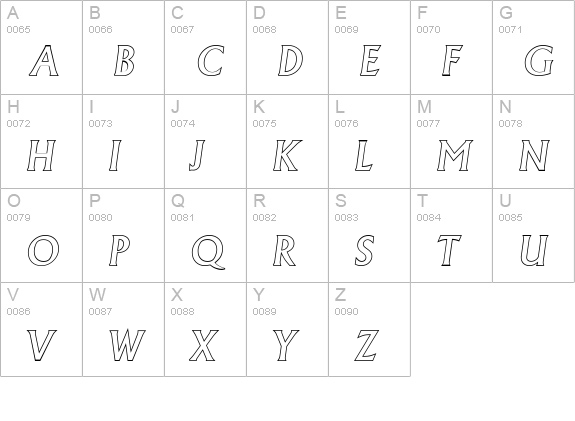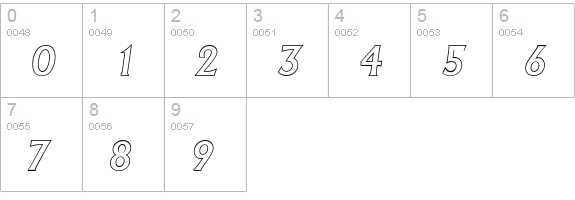
AdelonOutline-Medium-Italic is a balanced, medium-weight, italic variant in the AdelonOutline typeface family \xE2\x80\x94 well suited to sub-headlines, navigation, and balanced editorial work.
AdelonOutline-Medium-Italic font is a sleek and sophisticated typeface that strikes the perfect balance between elegance and modernity. With its stylish slanted design, this font exudes a sense of sophistication and professionalism, making it ideal for a wide range of design projects. The italic variant of AdelonOutline-Medium adds a touch of flair and creativity to any text, making it stand out while still maintaining a sense of refinement. Whether used for headings, titles, or body text, this font is sure to make a bold statement. And the best part? AdelonOutline-Medium-Italic font is available for free download at FontsMarket.com. So, you can elevate your designs with this stunning typeface without breaking the bank. Don't miss out on the opportunity to add this versatile and stylish font to your collection today!